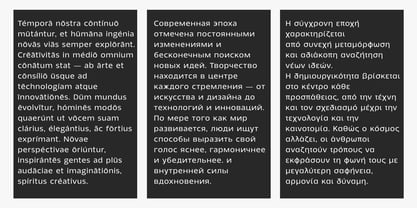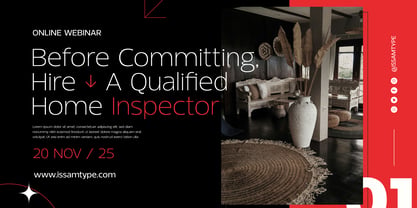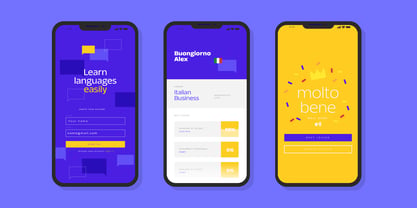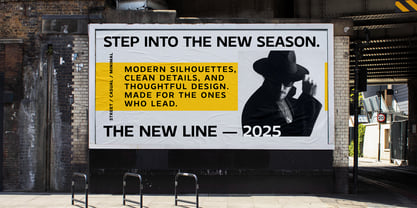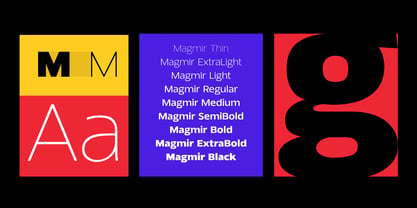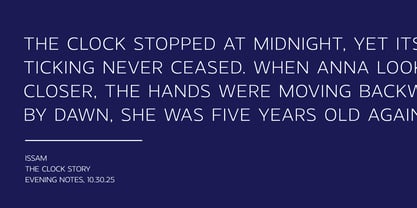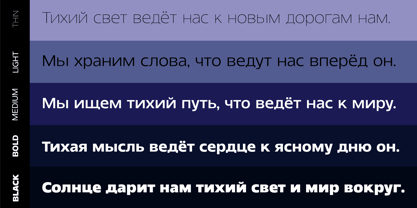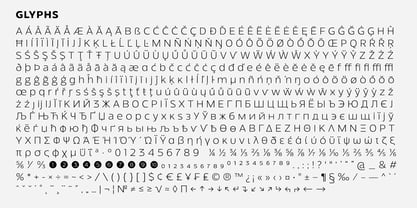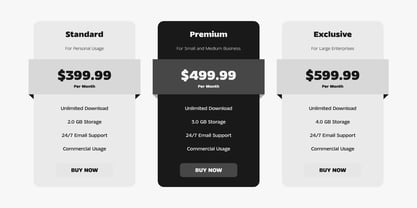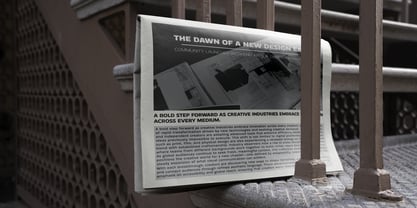
Magmir
Die Schriftfamilie Magmir wurde von Issam Boufelja entworfen und von Issam Type veröffentlicht. Magmir enthält 10 Stile und Familienpaketoptionen. Mehr über diese Familie
Magmir – A modern variable sans built on clean geometry and subtle curves. Its balanced proportions and controlled rhythm allow it to transition seamlessly from the lightest, most delicate forms to the boldest, most confident strokes. Ideal for branding, headlines, editorial layouts, digital or print projects, and more, Magmir combines clarity, strength, and a polished contemporary style. If you have any questions or need assistance, feel free to reach out! Thank you!